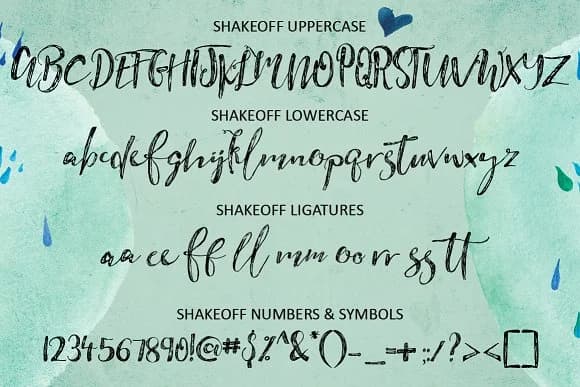
About Shakeoff Font
Shakeoff Font by Creativeqube Design is a flowing script typeface that brings the organic appeal of hand-drawn letterforms into contemporary design practice. Each character carries natural rhythm and authentic warmth, with organic strokes constructed to maintain strong readability across different scales while preserving the handcrafted quality designers often seek. The measured proportions make it equally effective in intimate applications like greeting cards and delicate editorial spreads as it is in larger brand identity work, offering genuine versatility that extends beyond typical script typeface limitations.
This typeface thrives in projects demanding artisanal character and curated aesthetics. Wedding invitation suites with custom envelope addressing and coordinated stationery gain significant presence from its graceful, personable letterforms. Boutique skincare packaging and artisanal product labeling benefit from an understated, upscale sensibility that this typeface naturally conveys. DIY crafters will discover excellent applications for custom vinyl decals and hand-lettered home signage projects, while small business owners can harness its letterpress-inspired quality for refined social media graphics and cohesive brand identity development. Editorial layouts, greeting card collections, and custom stationery design showcase its particular strength, where that intimate aesthetic presence genuinely enhances storytelling and reader engagement.
Shakeoff Font is a script font that shines as a display or heading face. Pair it with a clean sans-serif or serif font for body text β the contrast creates a clear hierarchy while the two styles stay balanced and easy to read.